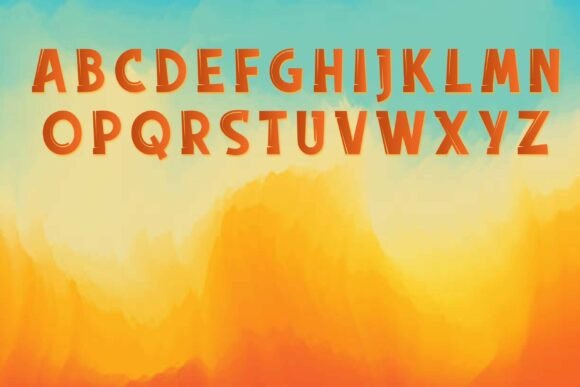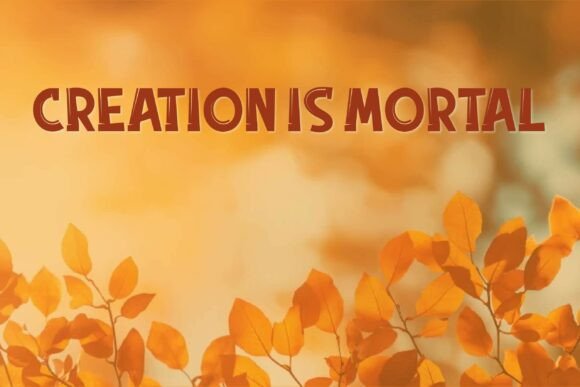
Introduction to Qwinj Font
As designers, we’ve all been there – staring at a blank canvas, trying to find the perfect font to bring our creative vision to life. But sometimes, that perfect font is hiding in plain sight. For those who crave something bold, playful, and eye-catching, we’re excited to introduce the Qwinj Font – a stunning, gothic-inspired decorative font that’s sure to capture attention and elevate your designs.
With its vibrant cartoon quality and 96 carefully designed glyphs, the Qwinj Font is the perfect design resource for any creative project. Whether you’re working on a movie title, cartoon name, game branding, or T-shirt design, this high-quality font is sure to add a touch of personality and energy to your work. And the best part? It’s highly functional, making it a valuable addition to any designer’s toolkit.
Key Features of Qwinj Font
- Unique design style with a modern twist, perfect for creative projects and design resources.
- Supports a wide range of languages, making it a versatile choice for international design projects.
Honest Review: Qwinj Font
As a designer, I’m always on the lookout for high-quality design resources to elevate my creative projects. Recently, I stumbled upon the Qwinj Font, and I must say, it’s been a game-changer.
- ✨ The font is incredibly versatile, making it perfect for a wide range of design projects, from logos to brochures.
- ✨ The font’s unique aesthetic is both modern and elegant, adding a touch of sophistication to any design.
- ⚠️ The font doesn’t have a transparent background, which can make it difficult to use in designs with complex backgrounds.
- ⚠️ The font’s character set is not as extensive as some other fonts, which can limit its use in certain design applications.
Overall, I’m thoroughly impressed with the Qwinj Font. While it may have some limitations, its unique style and high-quality design make it a valuable addition to any designer’s toolkit.
The Qwinj Font is a high-quality, versatile design resource that can elevate your creative project with its unique style and customizable options. With a transparent background, this font is perfect for adding a touch of sophistication to your visual content.
Common Use Cases for Qwinj Font
The Qwinj Font is perfect for creating high-quality designs for business cards, brochures, flyers, and other marketing materials. Its unique style and customizable options make it a great choice for creative projects.